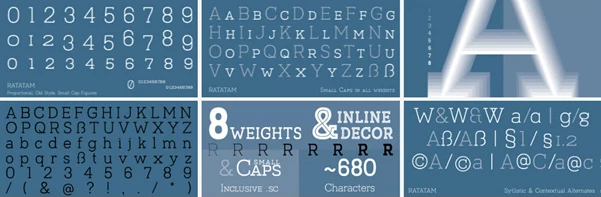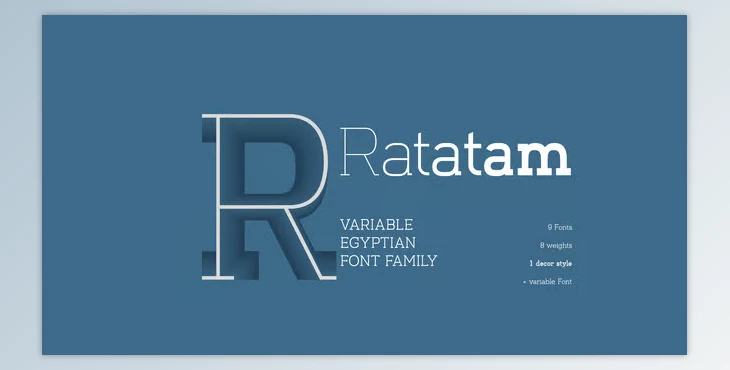
My Fonts - Ratatam Font Family:
Ratatam Font Family is a variable Egyptian font with 8 weights from thin to black, giving you plenty of options. This also goes beyond the weights, as variable font functionality lets you get even more specific with your selections. Ratatam also provides a decorative version of the font with elements inside.
Ratatam comes with many useful open-type features that can be turned on or off. Use them to your advantage as you see fit, taking into account contextual alternates and positional open-type features that ensure adaptability in every context. Ratatam also comes with the whole small caps set. In short, you have everything you need with the Ratatam Font Family at your disposal.